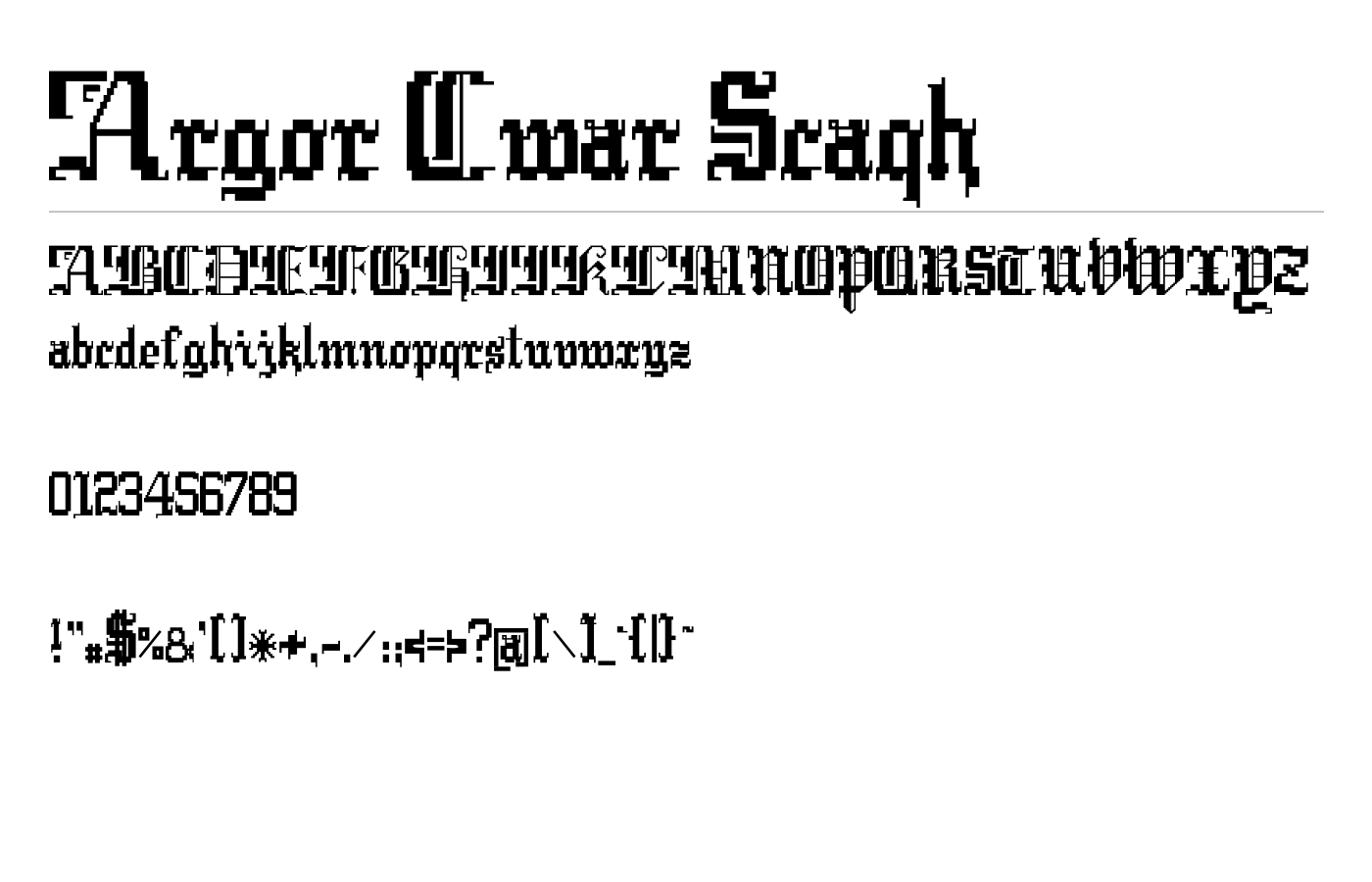
Argor Cwar Scaqh is a bold, condensed serif font featuring a pixelated, blocky texture that combines vintage gothic with modern digital aesthetics. Its high contrast and sharp, bracketed serifs create a distinctive, edgy look that suits retro-futuristic and tech-inspired branding or headlines. This font works best in display settings where a strong, unconventional personality can make an impact.